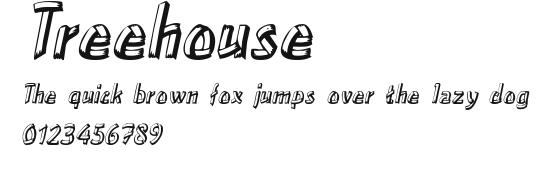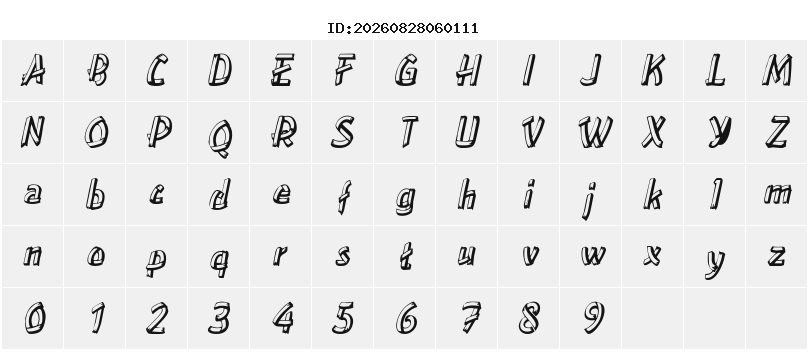
• Font Name: Treehouse
• Font Style: Oblique
• Font ID: SWFTE:Treehouse Oblique Regular
• Full Font Name: Treehouse Oblique
• Version: Rev. 003.000
• PostScript Name: TreehouseObliqueRegularSWFTE
• Character Count: 80
About Treehouse.ttf
Treehouse.ttf is a modern, elegant sans-serif font designed for ultimate readability and visual harmony. Perfect for branding, headlines, web design, and print materials.